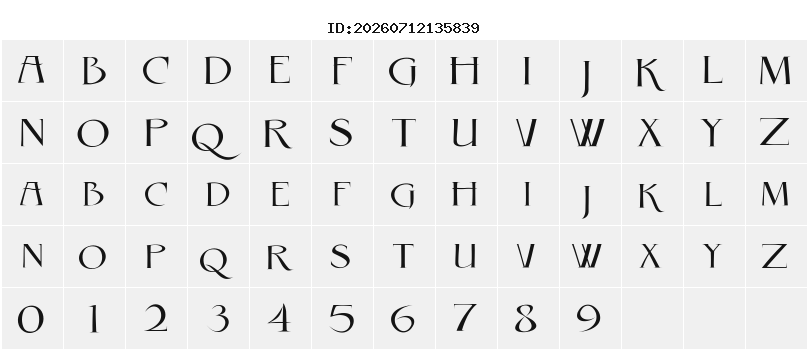
Rebel Caps Preview
• Font Name: Rebel Caps
• Full Font Name: Rebel Caps
• Designer: J.B.
About Rebel Caps.ttf
Rebel Caps.ttf is a modern, elegant sans-serif font designed for ultimate readability and visual harmony. Perfect for branding, headlines, web design, and print materials.